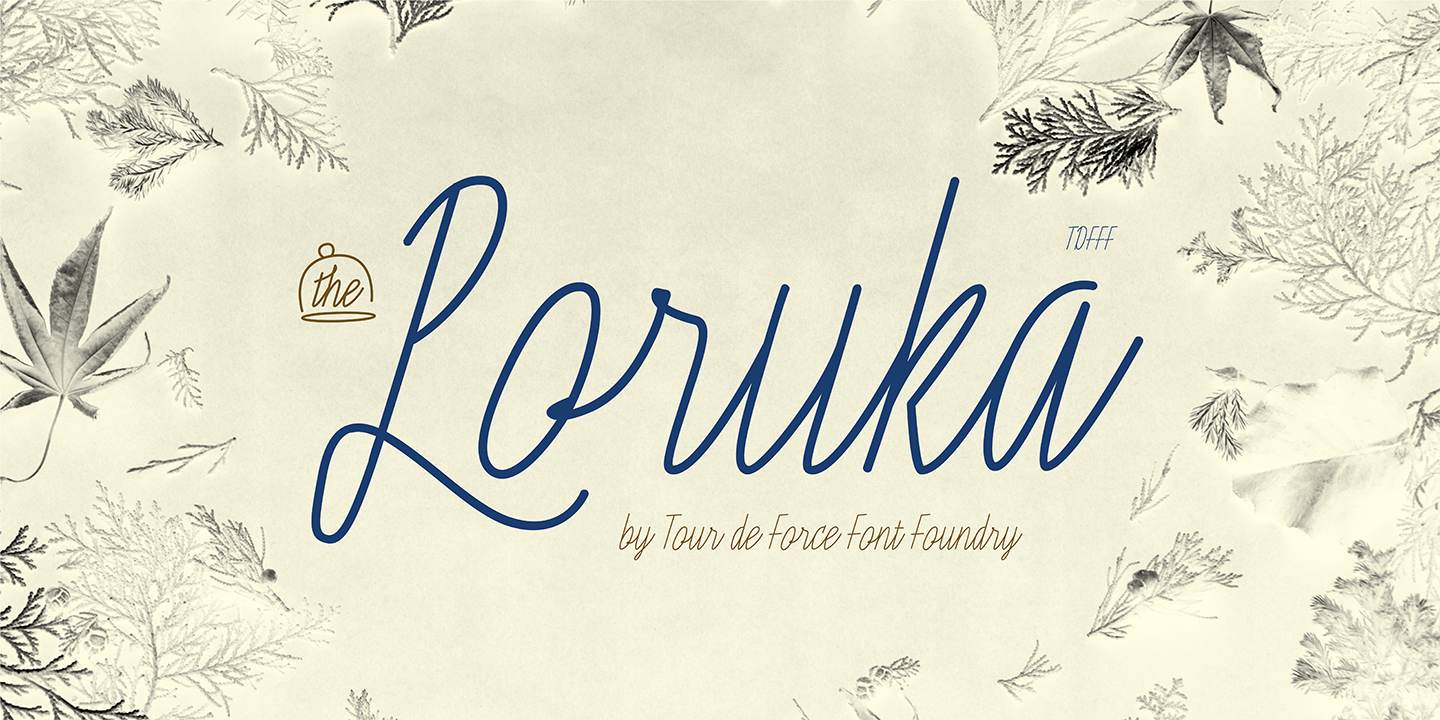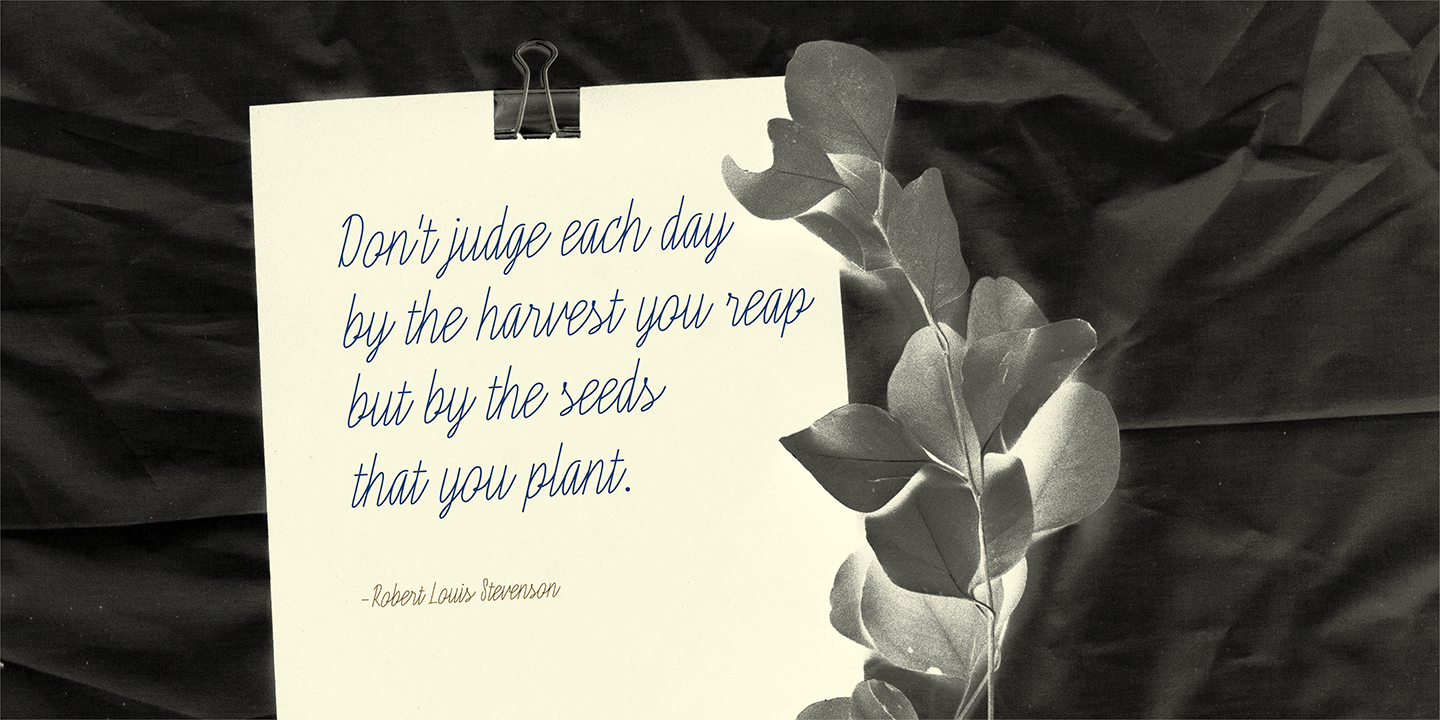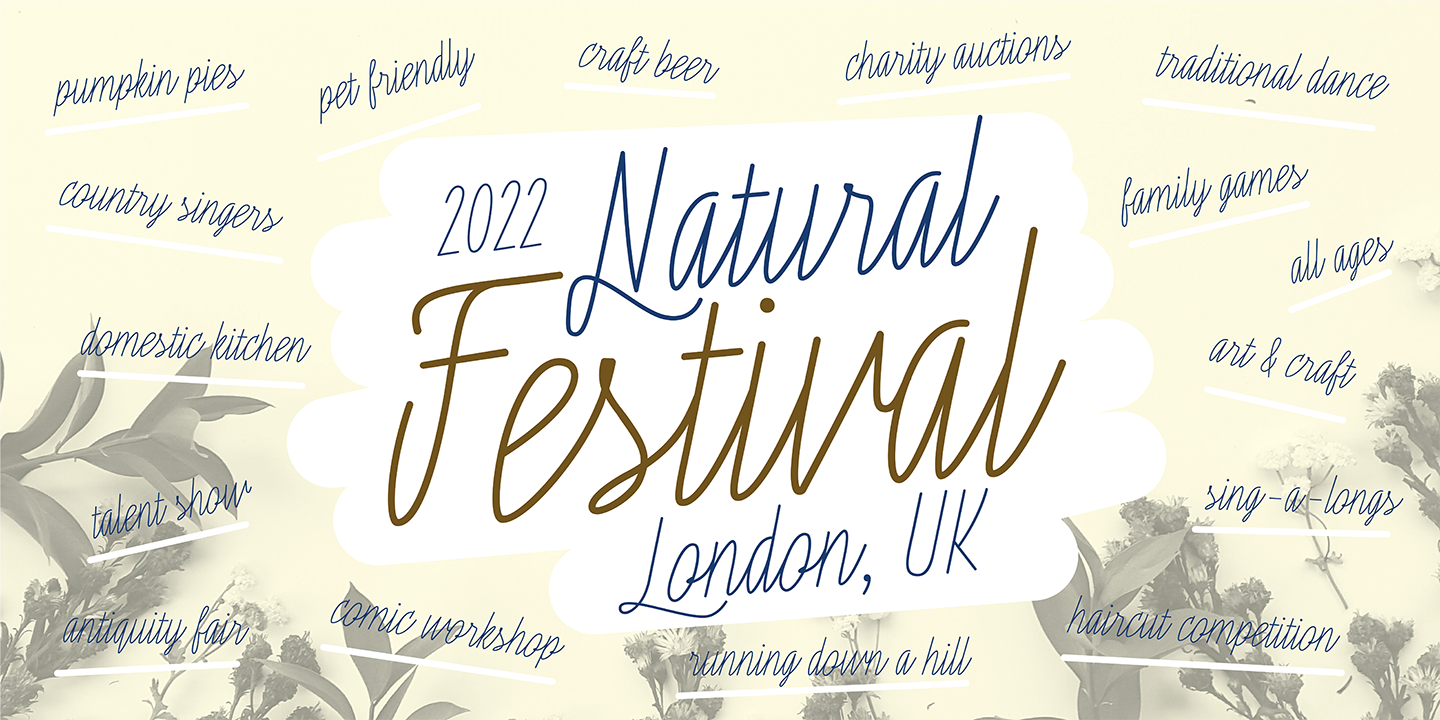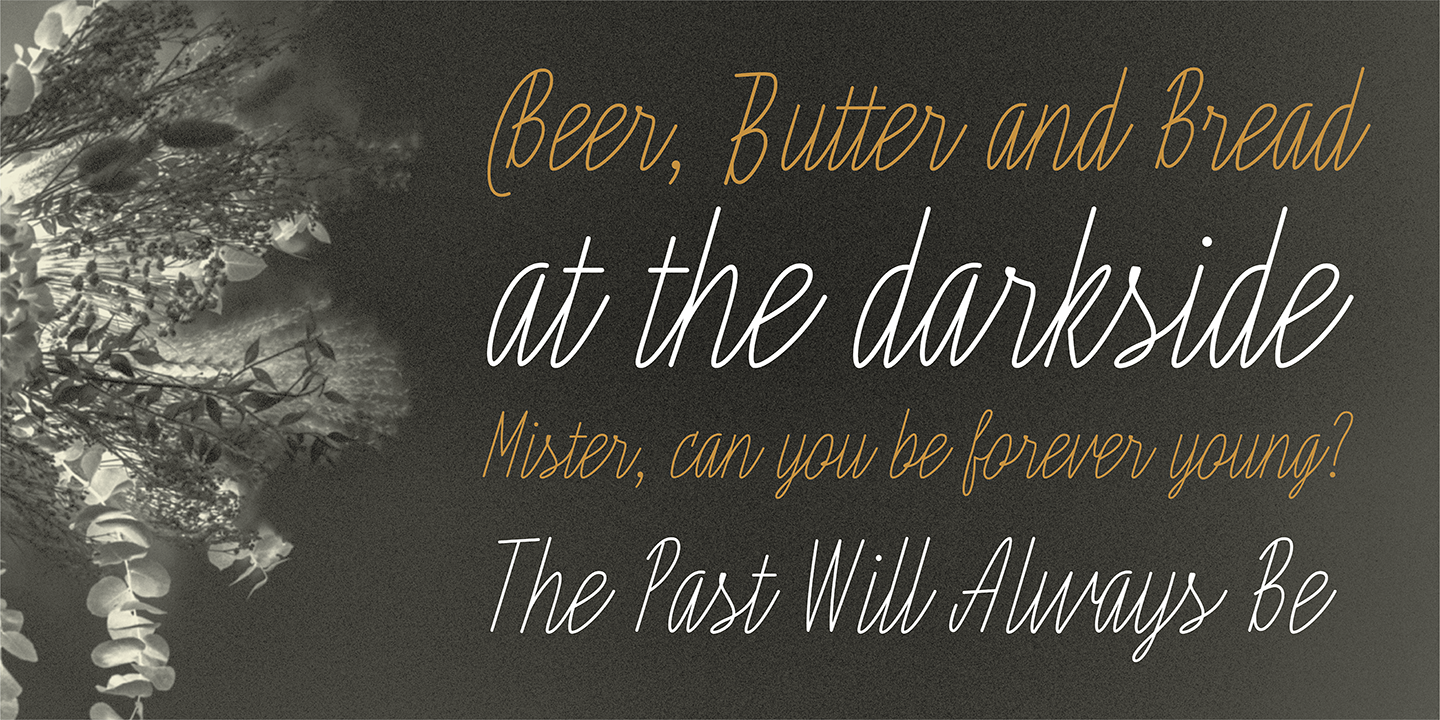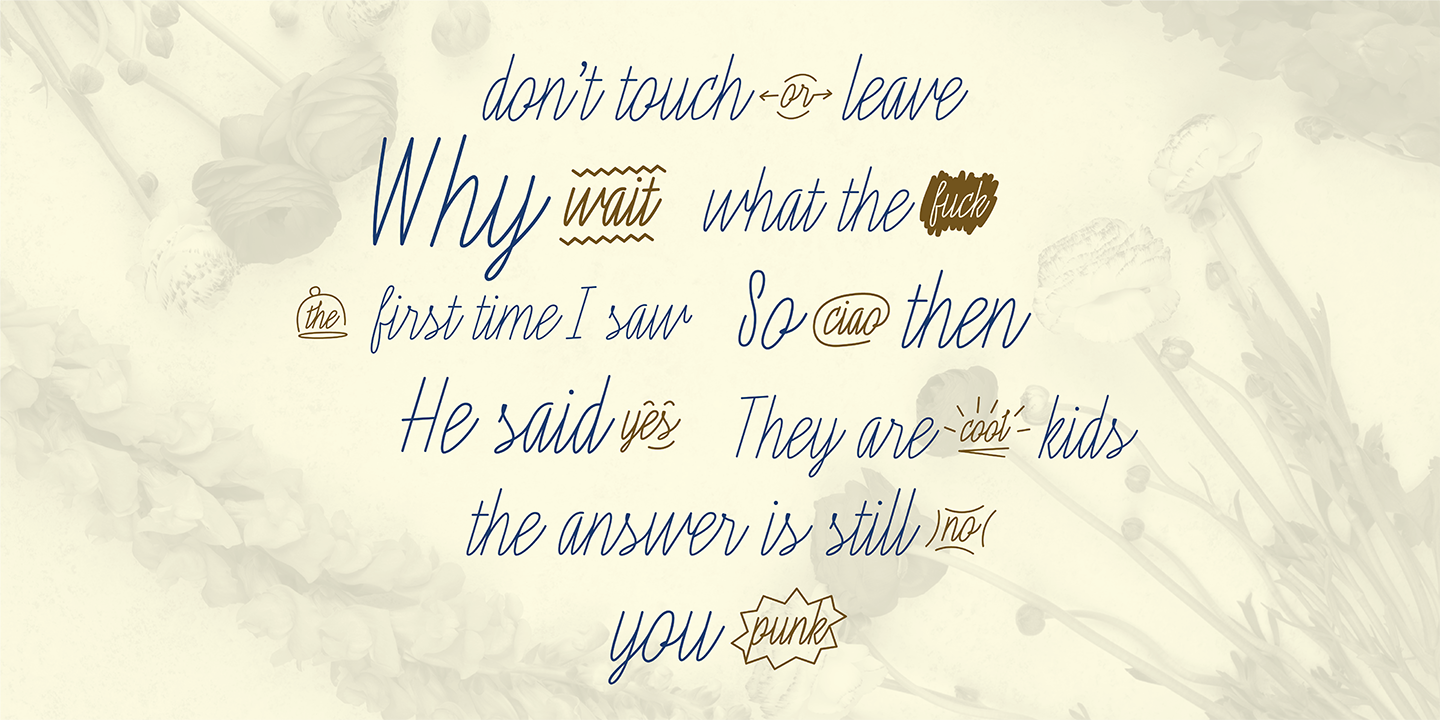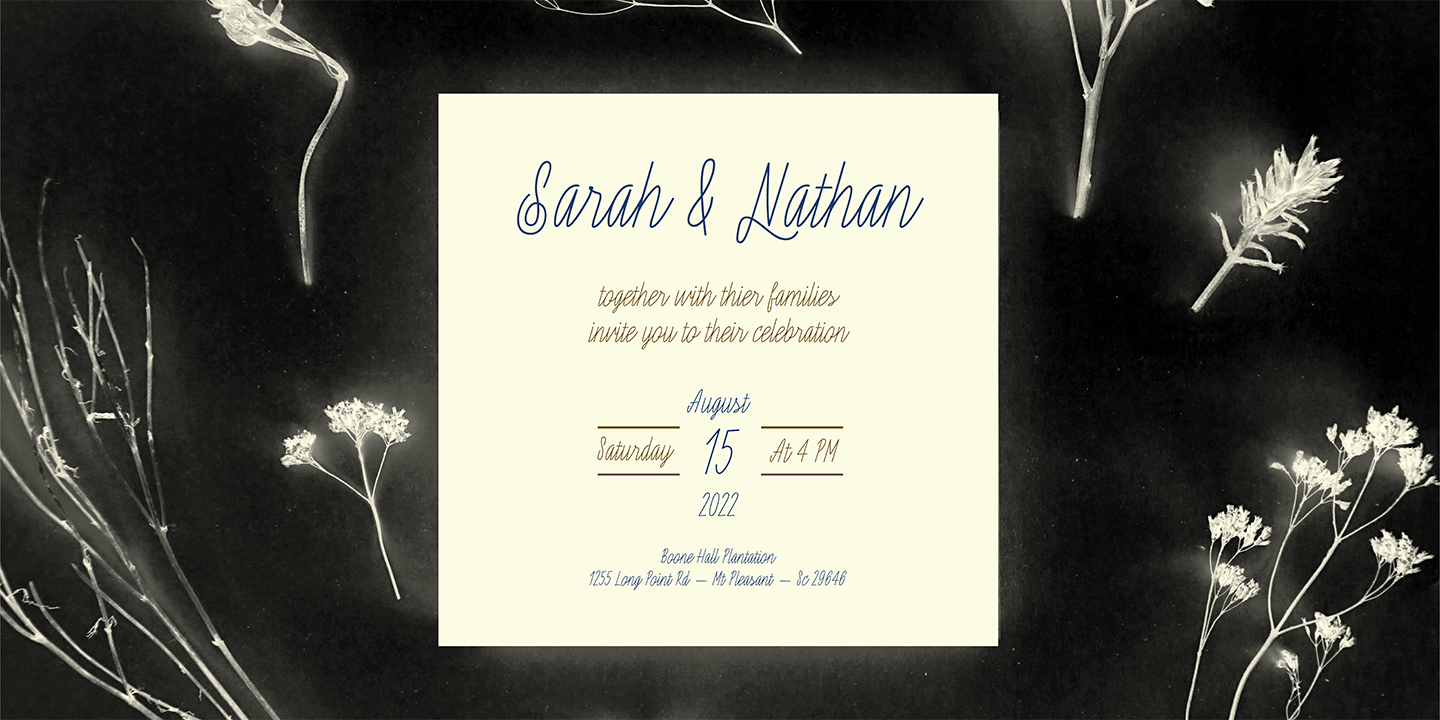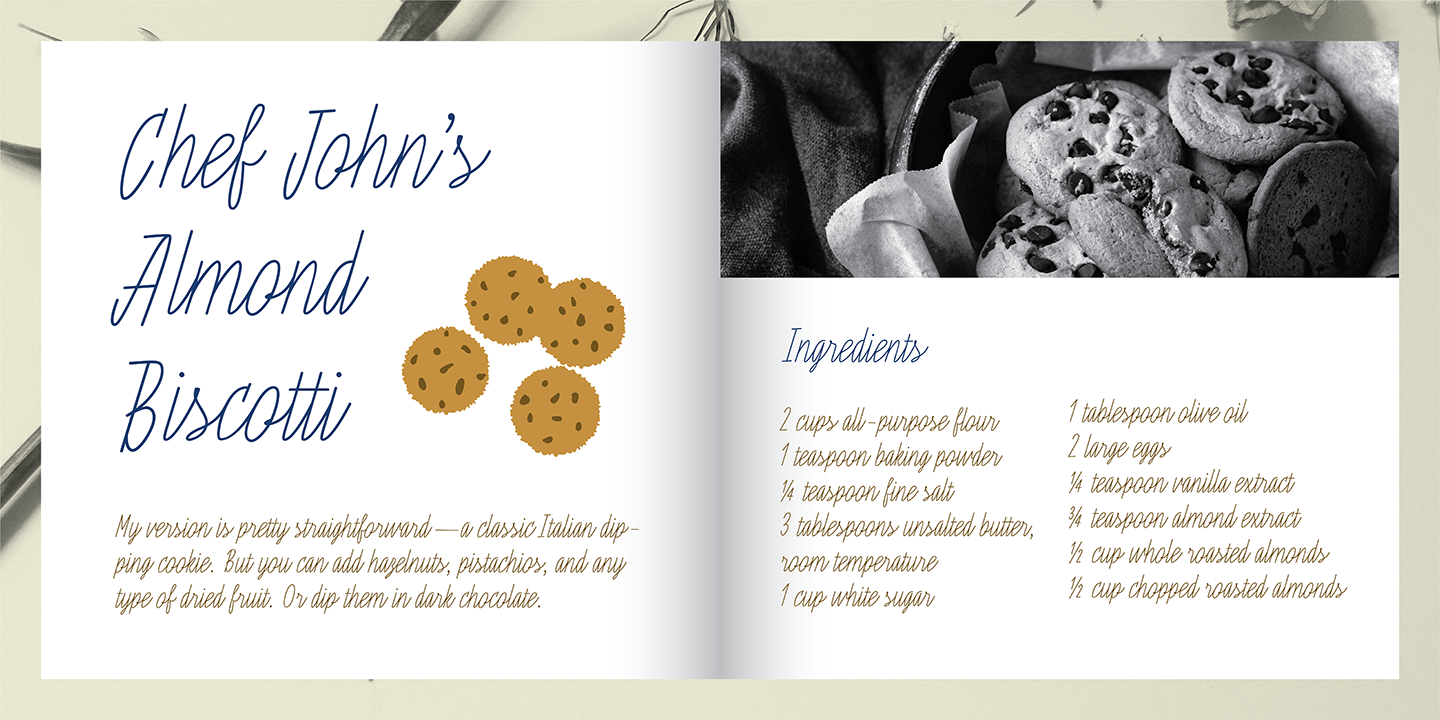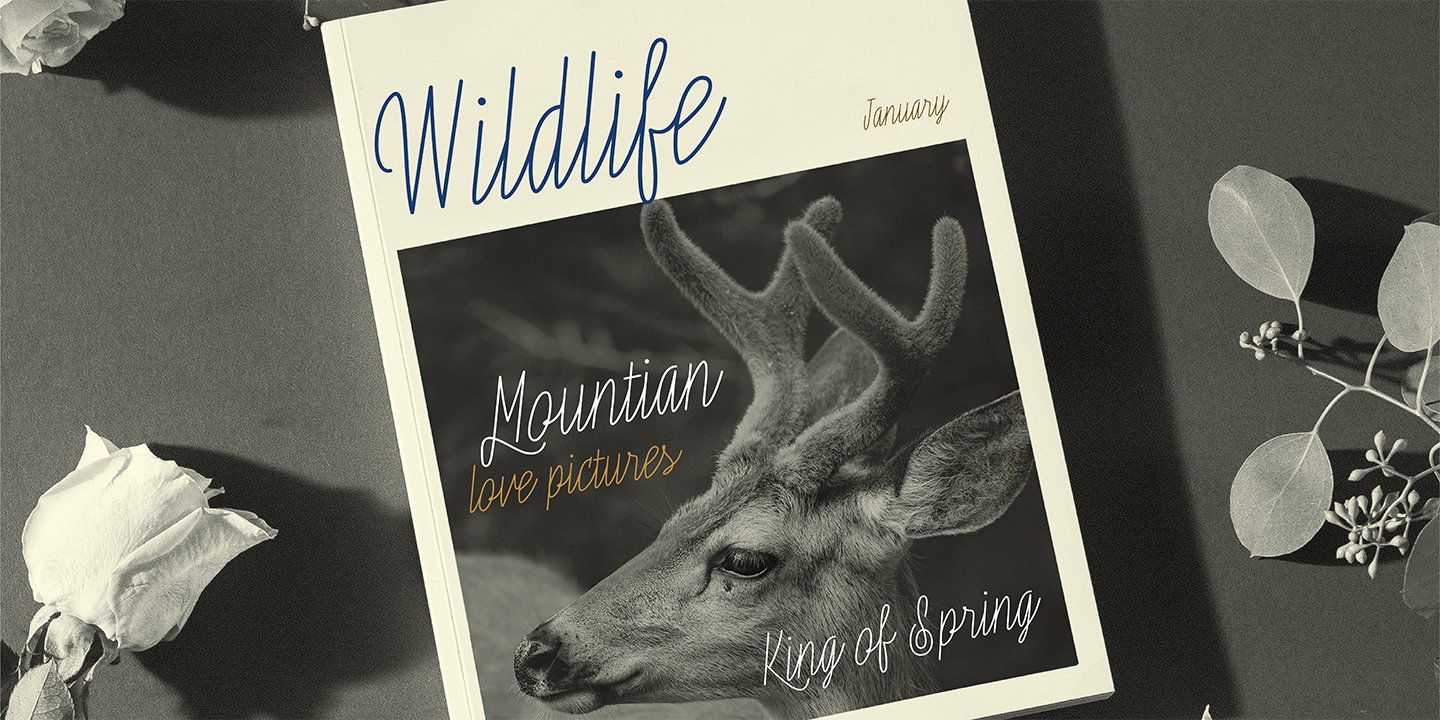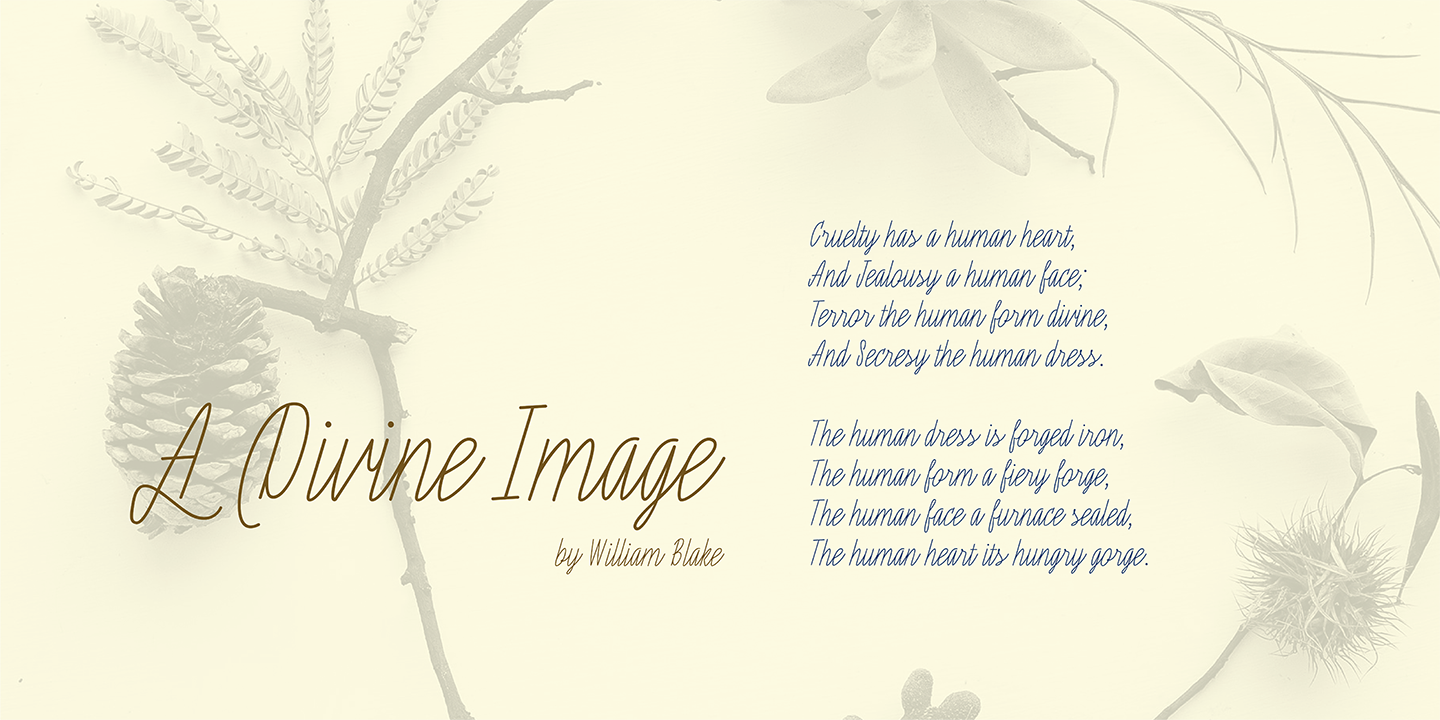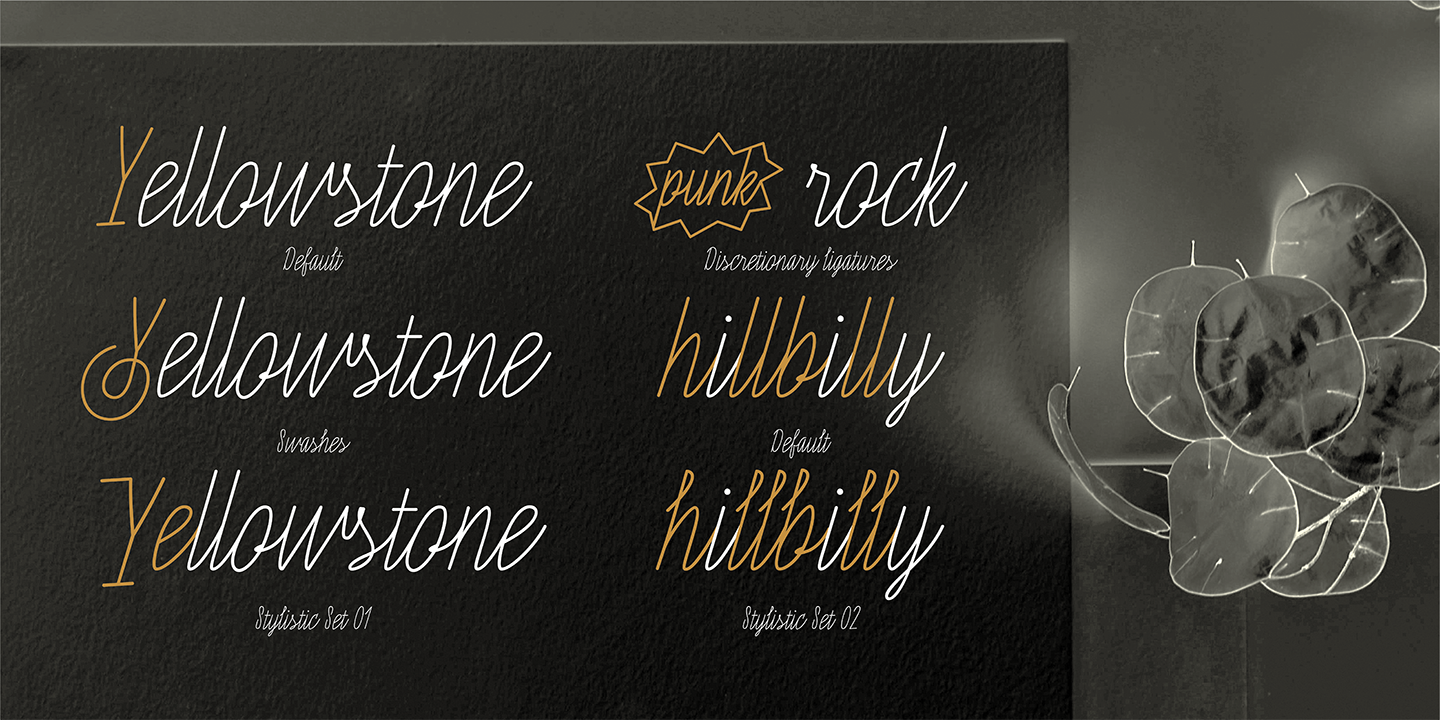
Poruka
Designed by Dušan Jelesijević
Poruka comes with two Stylistic Sets – 01 which activates uppercase letters with full font height (from the top of ascender to the bottom of descender) and 02 – which activates handwritten forms on “b”, “d”, “h” and “l” letters. Also, Poruka is equipped with Swashes and Discretionary Ligatures which doesn’t really represent classical pack of expected ligatures, but more as graphical version of a couple of words like “yes”, “no”, “wait”, “ciao” and a few more.
Discretionary Ligatures
Stylistic Set 1
Stylistic Set 2